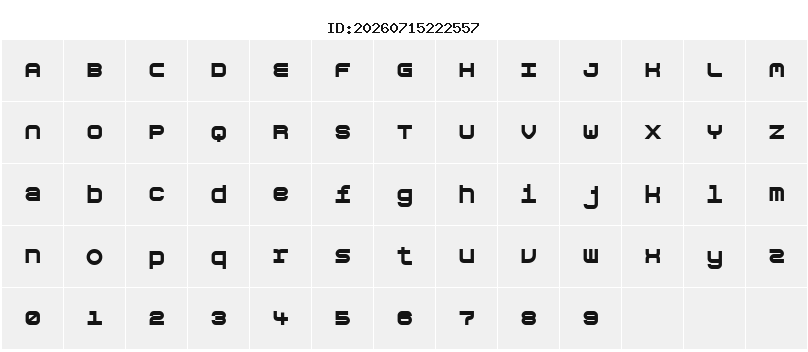
• Font Name: AspirinOverdose
About AspirinOverdose.ttf
AspirinOverdose.ttf is a modern, elegant sans-serif font designed for ultimate readability and visual harmony. Perfect for branding, headlines, web design, and print materials.